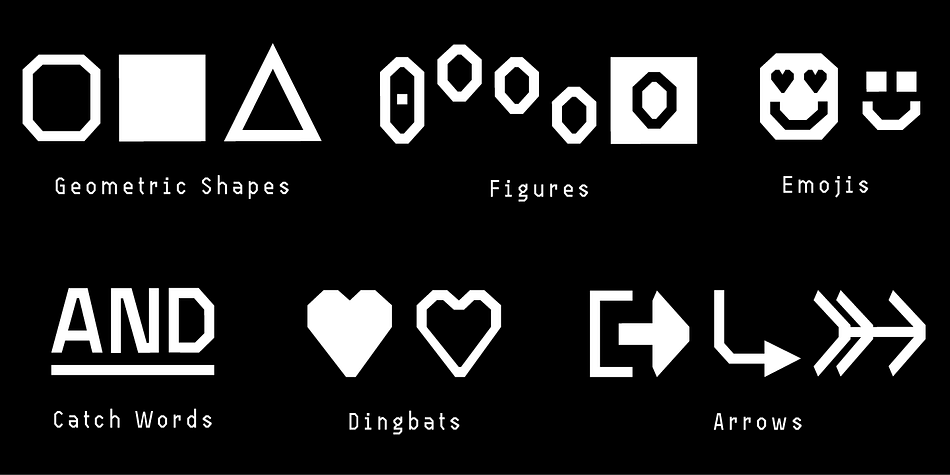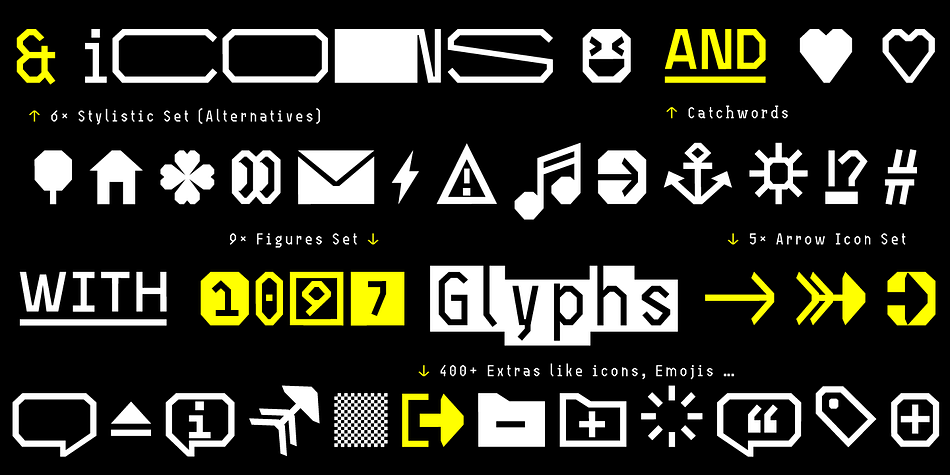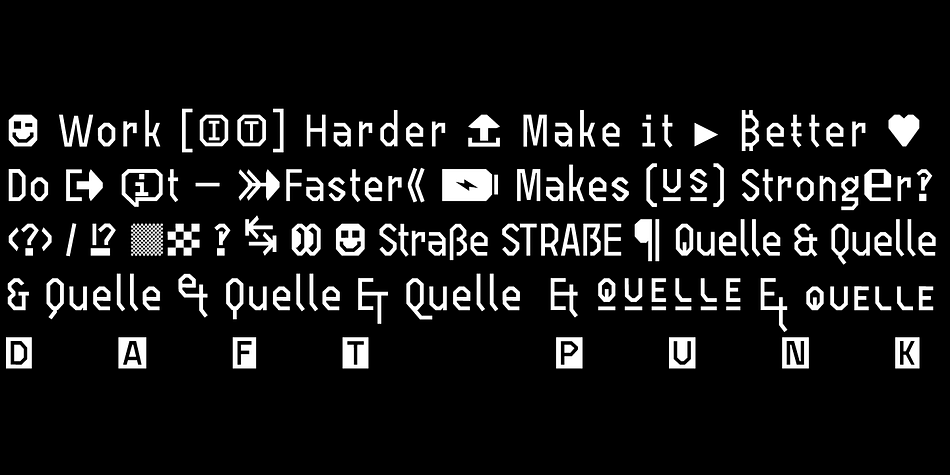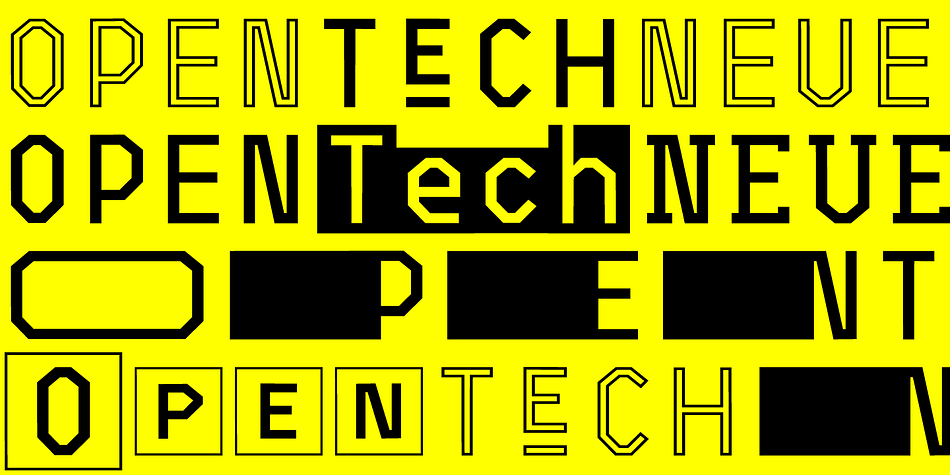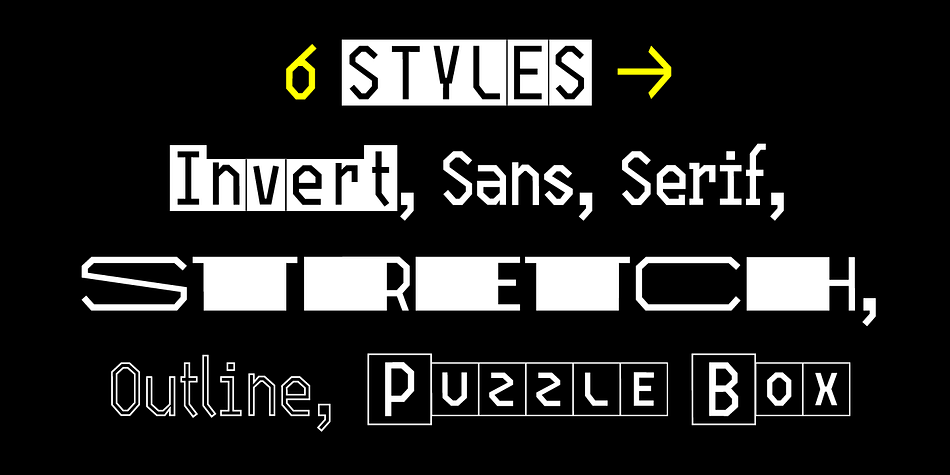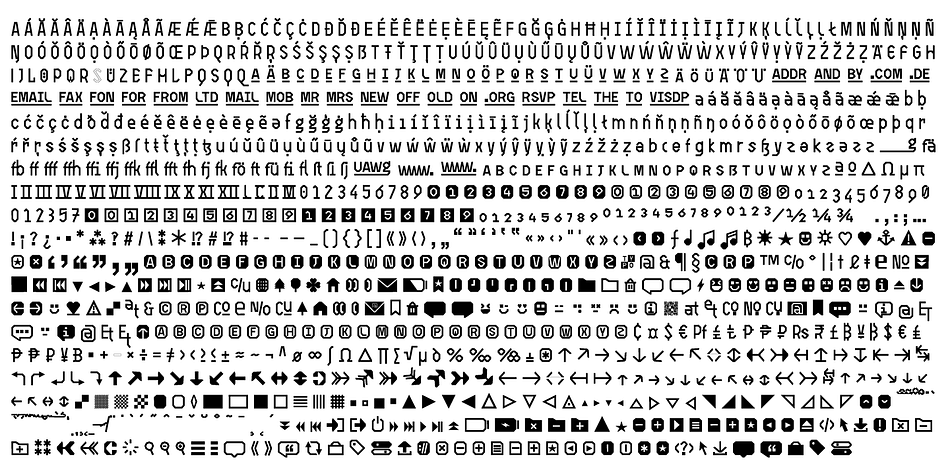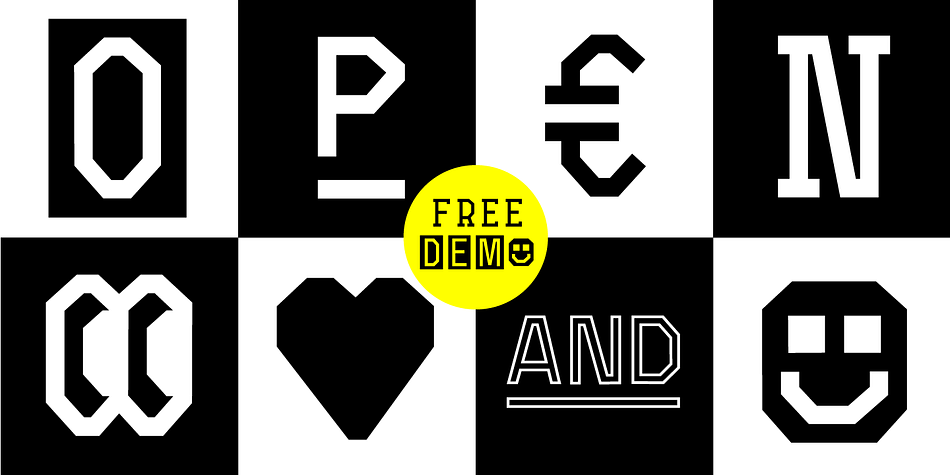
Designed by Manuel Viergutz, Open TECH Neue is a multiple classification font family. This typeface has fourteen styles and was published by Typo Graphic Design.
The typeface Open TECH Neue is designed from 2018—2021 for the font foundry Typo Graphic Design by Manuel Viergutz.
6 font-styles (Sans Serif, Invert, Outline, Slab Serif, Stretch, Box Puzzle) + 1 icon-style with 1097 glyphs (Adobe Latin 3) incl. 400+ decorative extras like icons, arrows, dingbats, emojis, symbols, geometric shapes, catchwords, decorative ligatures (type the word #LOVE for ♥︎ or #SMILE for ☺ as OpenType-Feature dlig) and stylistic alternates (6 stylistic sets).
For use in logos, magazines, posters, advertisement plus as webfont for decorative headlines. The font works best for display size.
■ Font Name: Open TECH Neue
■ Font Styles: 6 (Sans Serif, Invert, Outline, Slab Serif, Stretch, Box Puzzle) + Icons + DEMO (with reduced glyph-set)
■ Font Category: Display for headline size
■ Glyph Set: 1097 glyphs (Adobe Latin 3) incl. 400+ icons (decorative extras like arrows, catch words, dingbats, emojis, symbols)
■ Type Designer: Manuel Viergutz